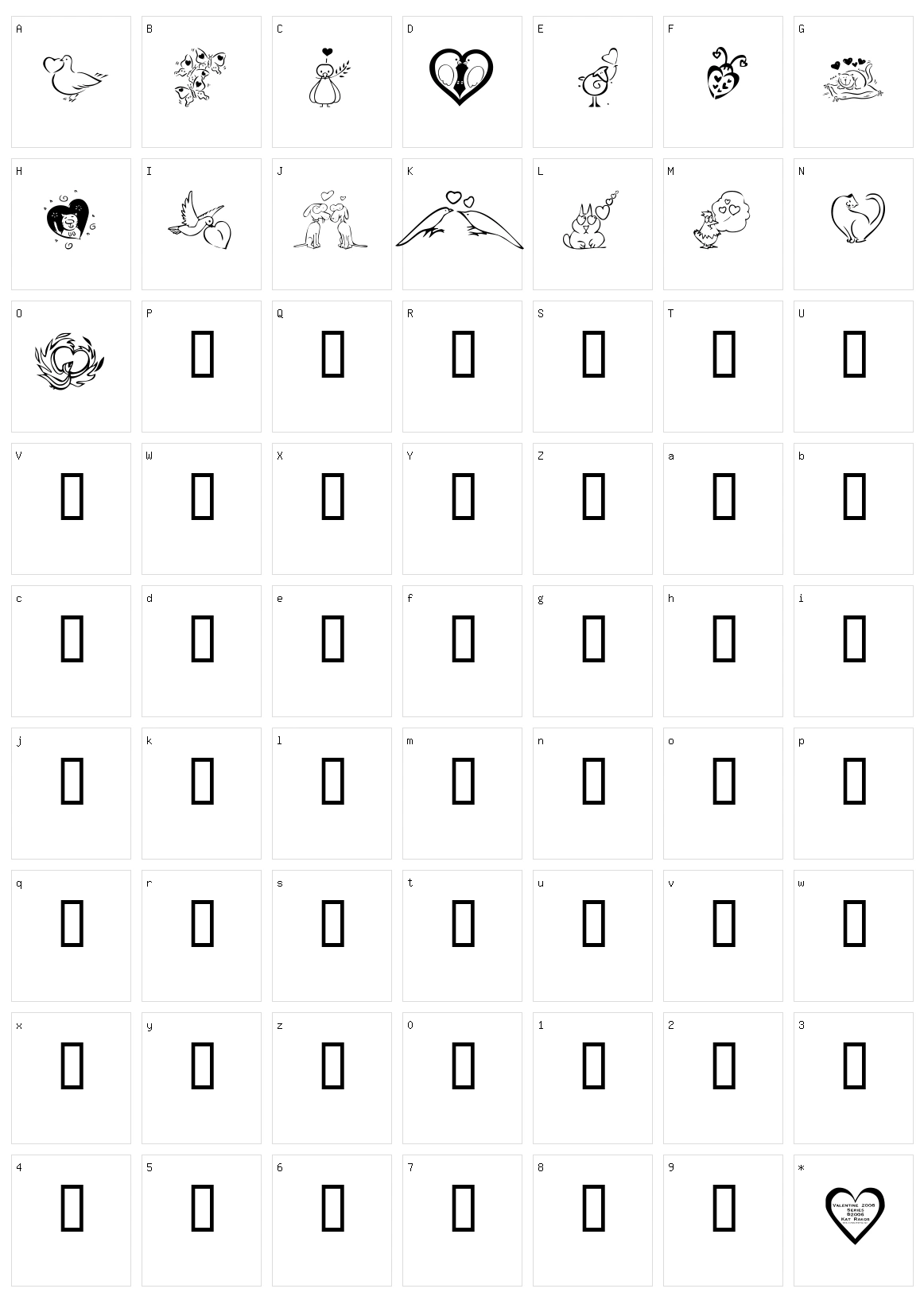
The free font KR Valentines 2006 Three is carefully designed by Kat's Fun Fonts, showcasing a thoughtful balance of creativity and usability and falls under the Valentine font style. When you download the ZIP file, it contains only 19.43 KB of font files, making it lightweight and quick to download. Please review the license details below to understand permitted usage and distribution rights. If license information is not available, we recommend using this font for personal projects only or contacting the author directly for commercial usage permissions.